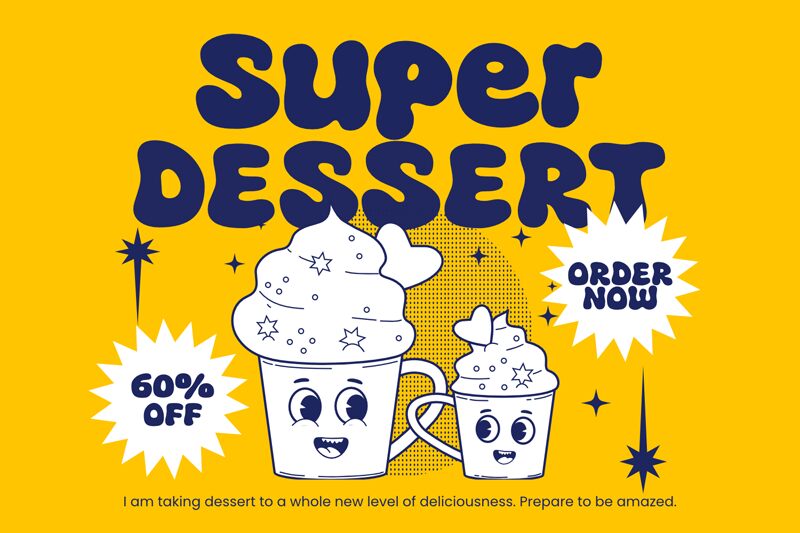
Super Dessert
Super Dessert, a whimsical creation by fsuarez913, is a daring display font that adds a touch of playfulness to any project.
With its extra-bold weight and semi-expanded width, this cartoon-inspired typeface is perfect for eye-catching headlines, children's books, and playful logos. Let Super Dessert bring your designs to life with its vibrant and energetic style. Whether you're working on an animated video or a candy-themed website, this font is sure to add a delightful twist that will captivate your audience.